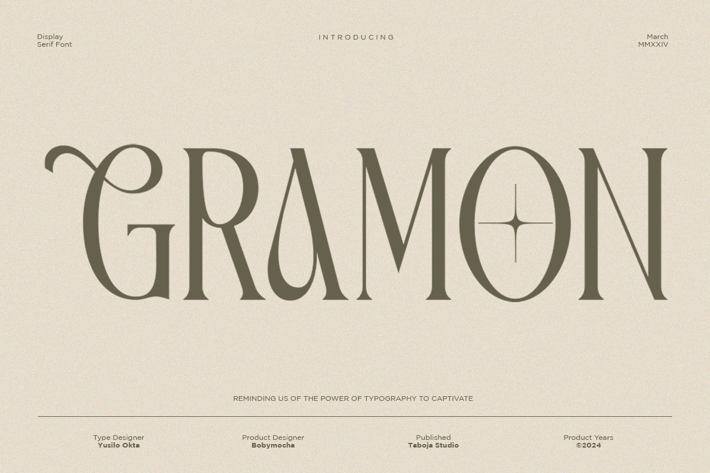
Gramon - Elegant Condensed Display Serif Font
Introducing Gramon – a stunning condensed font that blends style and elegance in every detail. Designed to convey a modern and sophisticated impression, Gramon features sleek and elegant letterforms with harmonious proportions. Each character is meticulously crafted to provide a contemporary feel.
With its condensed structure, Gramon allows more text to be displayed in limited space without sacrificing readability. Gramon easily adapts to various design contexts, both print and digital. Its minimalist approach ensures that your message is delivered clearly and impactfully. This font combines elegance and simplicity to create a timeless aesthetic.
Despite its condensed form, Gramon maintains excellent readability at all sizes. It is equipped with a wide range of characters that support multiple languages, making it an ideal choice for global projects. Additionally, Gramon offers various stylish ligatures and alternate characters, enabling creative and unique typographic expressions.
Regular
Numerals and Punctuation
100 Various Alternates And Ligatures
Accented characters